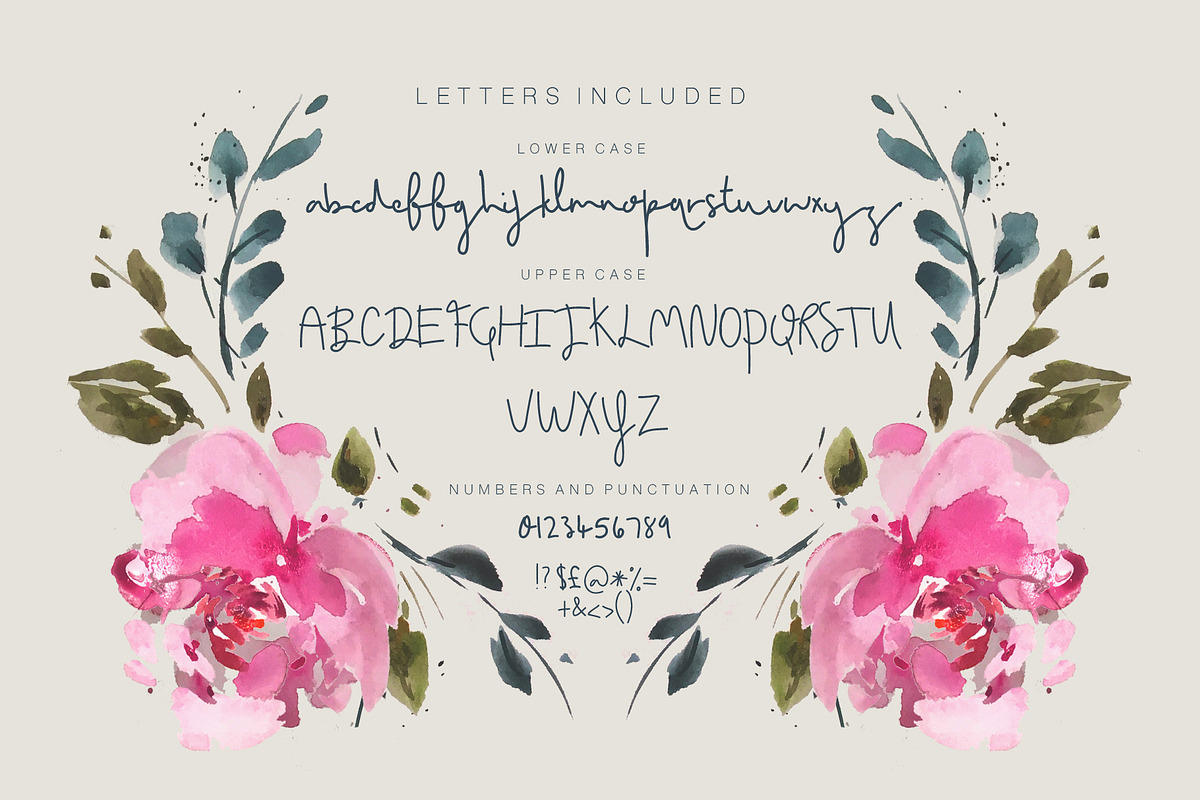
Perfect Imperfections
Font with Watercolour Florals Included
Perfect Imperfections is a sweet and elegant font with a delicate finish. It could be great for your art and craft needs wether it's adding some text to a greeting card, creating a pretty quote to frame or even dressing up an Instagram post! It's up to you. This dreamy font includes a full set of Uppercase and Lowercase letters, Numbers and Punctuation.
The collection also includes some ready made watercolour floral arrangements that fit nicely together with Perfect Imperfections.